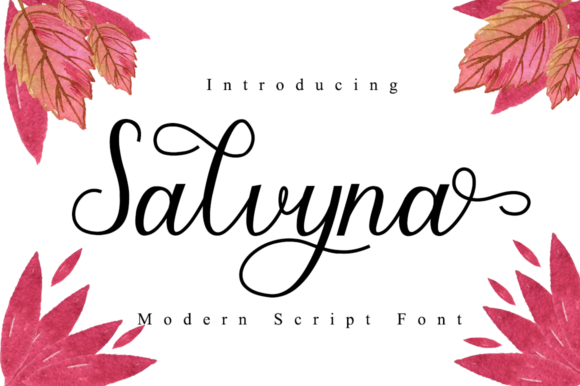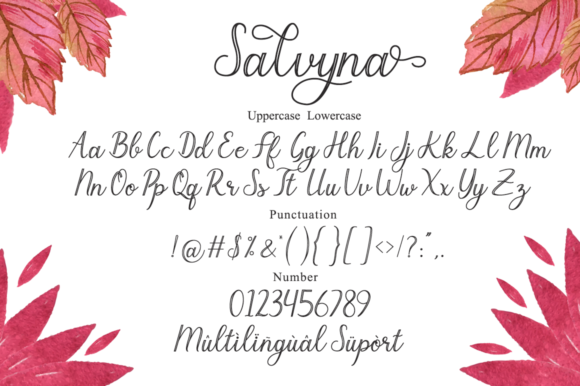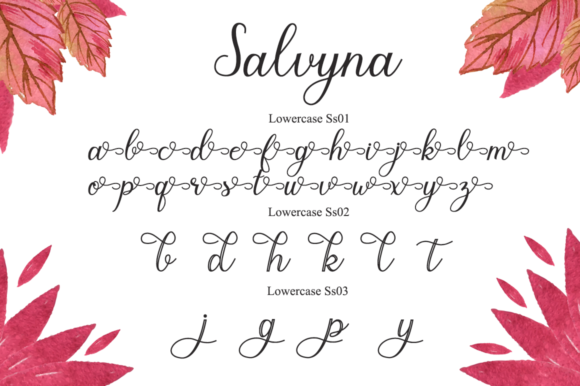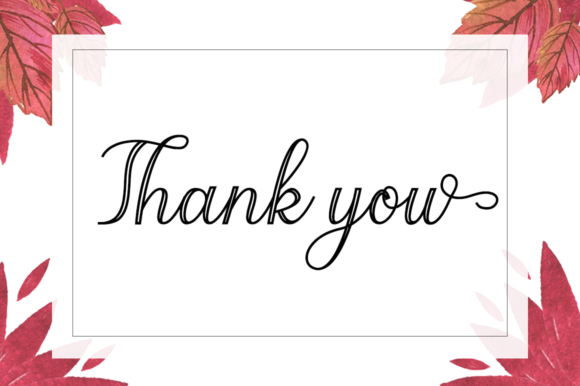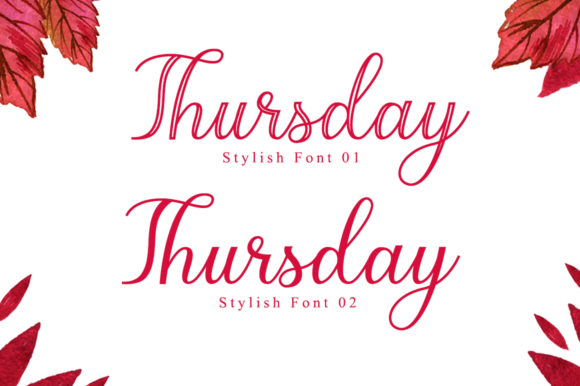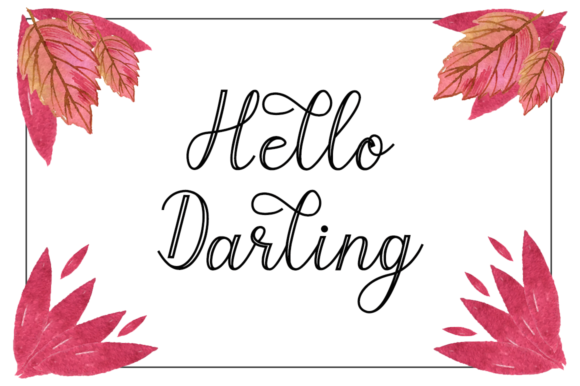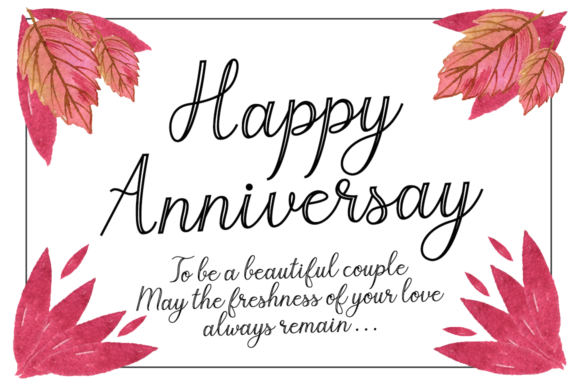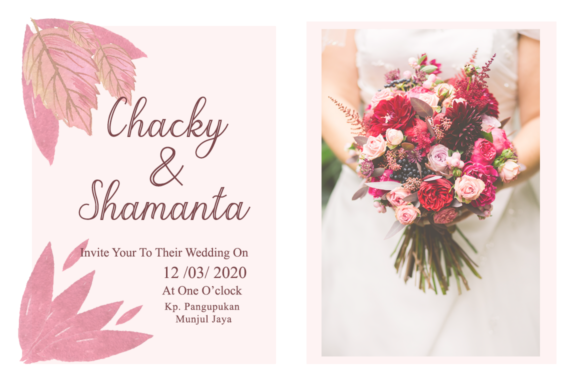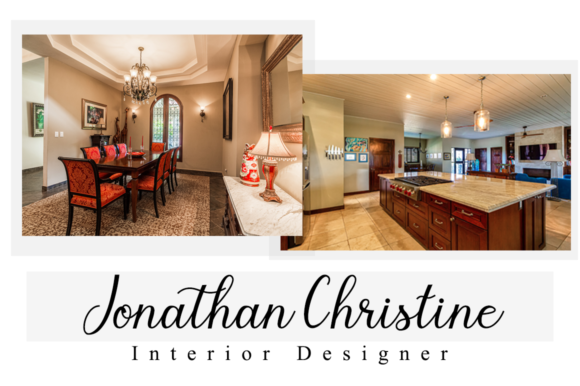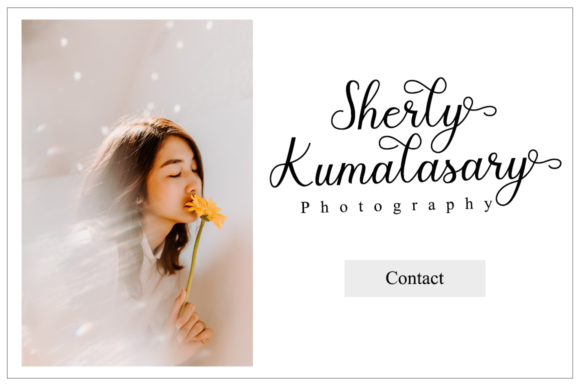
Salvyna Font
About Salvyna Font
Salvyna fonts are made with hand strokes that are beautified with different tail style letters. Its beautiful and elegant style is perfectly suited for many projects!